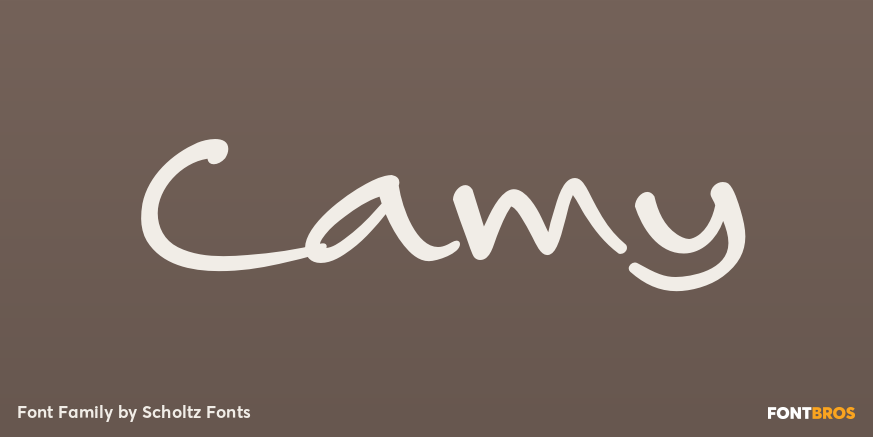
Camy
About Camy
I wanted to create a ?handwriting? font which could be used professionally. I have often needed such a font with a variety of weights and styles for a particular project and have had to resort to mixing fonts, creating a rather messy, amateur job. Camy…